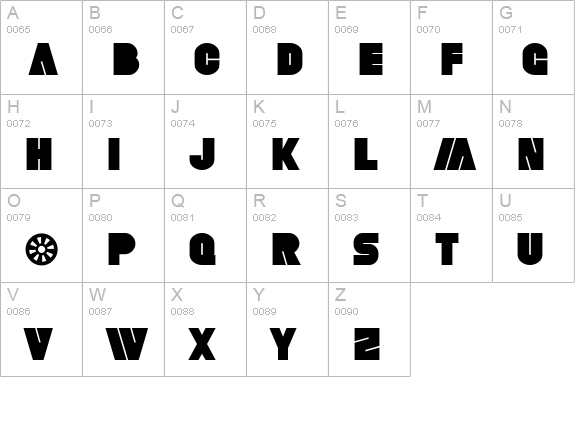
SF Fortune Wheel Bold is a strong, high-contrast variant in the SF typeface family \xE2\x80\x94 well suited to headlines, attention-grabbing titles, and strong calls-to-action.
SF Fortune Wheel Bold is a captivating and dynamic font that exudes a sense of power and modernity. Its bold and thick letterforms are designed to make a strong impact, instantly grabbing the viewer's attention. With its sleek and stylish appearance, this font is perfect for a wide range of projects, from advertising and branding to packaging and headlines. What sets SF Fortune Wheel Bold apart is not just its striking design, but also the fact that it is available for free. Yes, you read that right! This incredible font can be freely downloaded at FontsMarket.com, ensuring that you can add a touch of boldness to your designs without breaking the bank. With SF Fortune Wheel Bold, you have the freedom to unleash your creativity and create stunning visuals that leave a lasting impression. The boldness of this font makes it perfect for showcasing important information or making a statement. Its versatility allows it to be used in various design contexts, whether it's for print or digital media. Whether you're working on a logo, website, poster, or any other design project, SF Fortune Wheel Bold will effortlessly enhance your visuals and make them stand out. Its bold and commanding presence demands attention and adds a touch of sophistication to any design. Don't miss out on the opportunity to elevate your designs with this incredible font. Download SF Fortune Wheel Bold for free at FontsMarket.com and experience the power and impact it can bring to your creative projects.